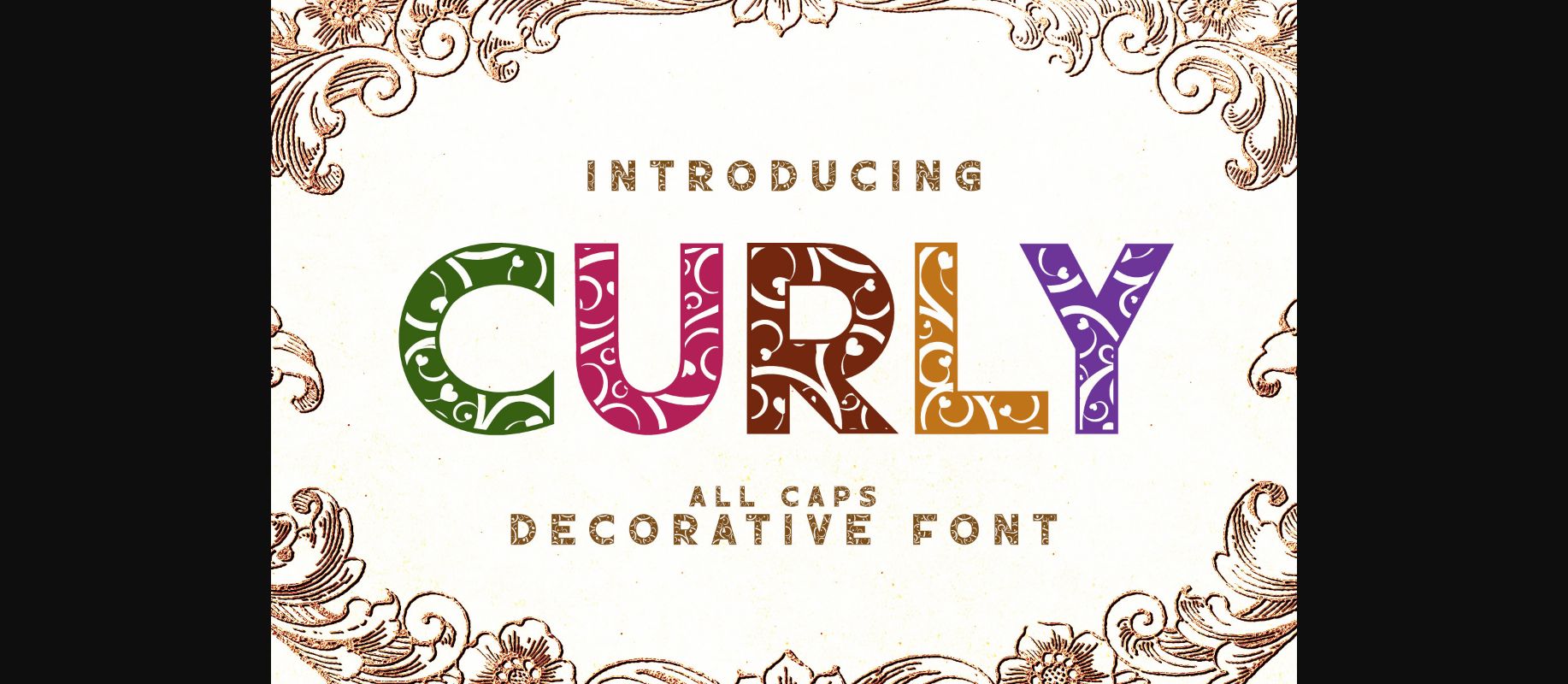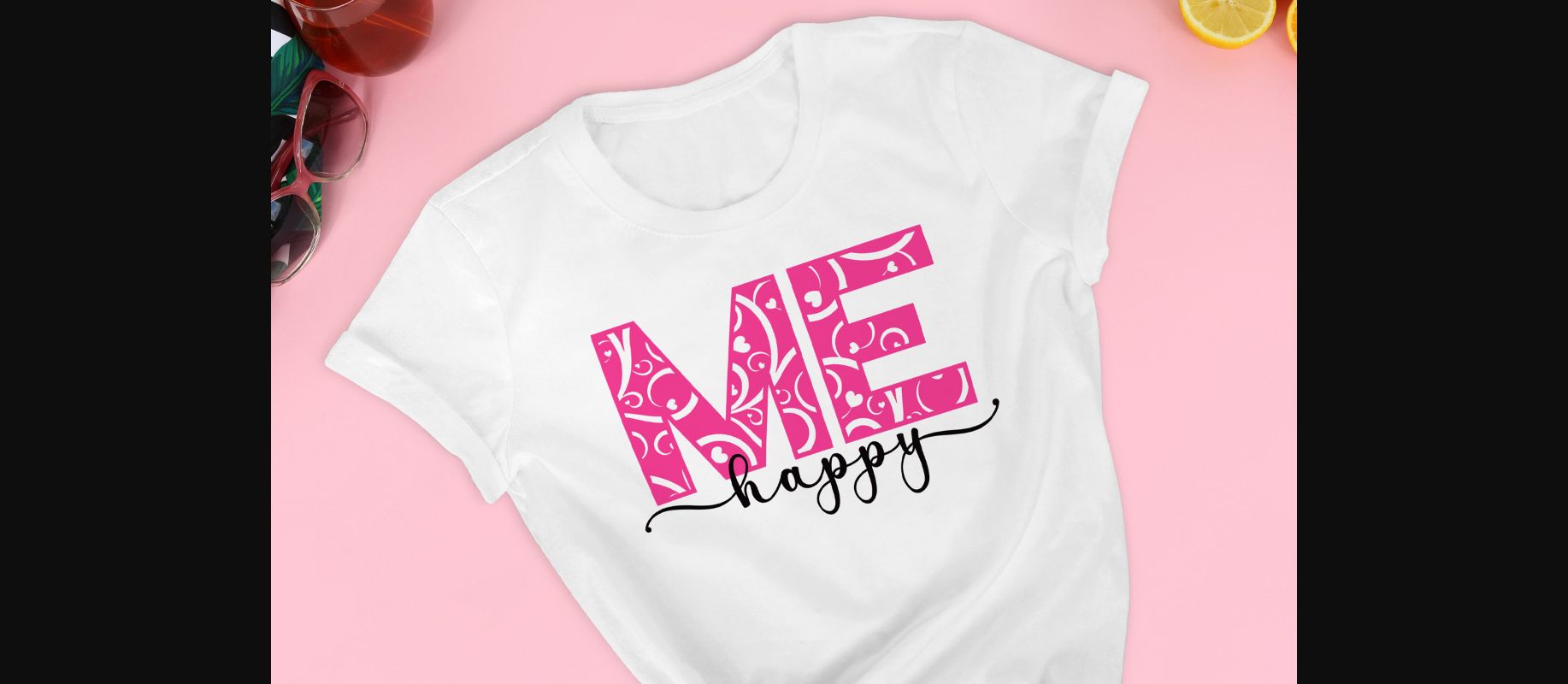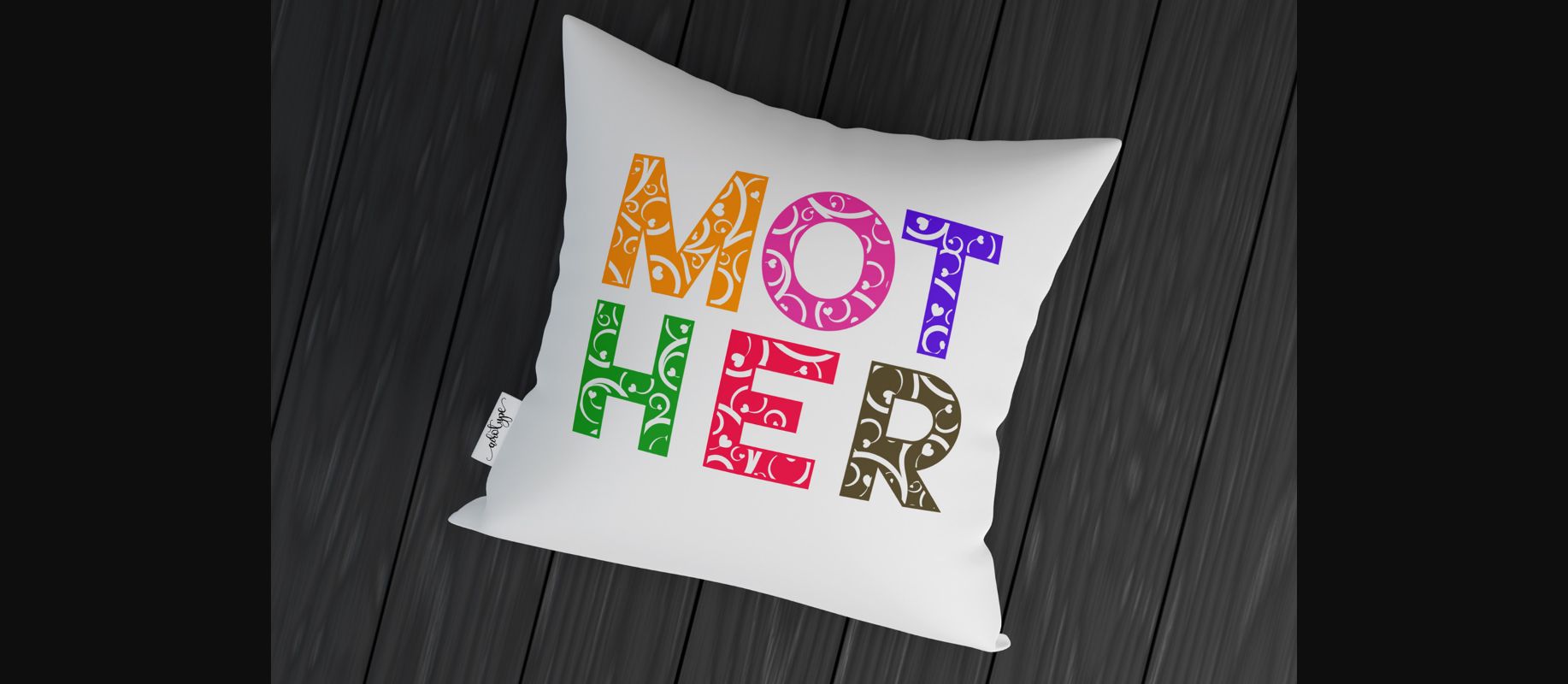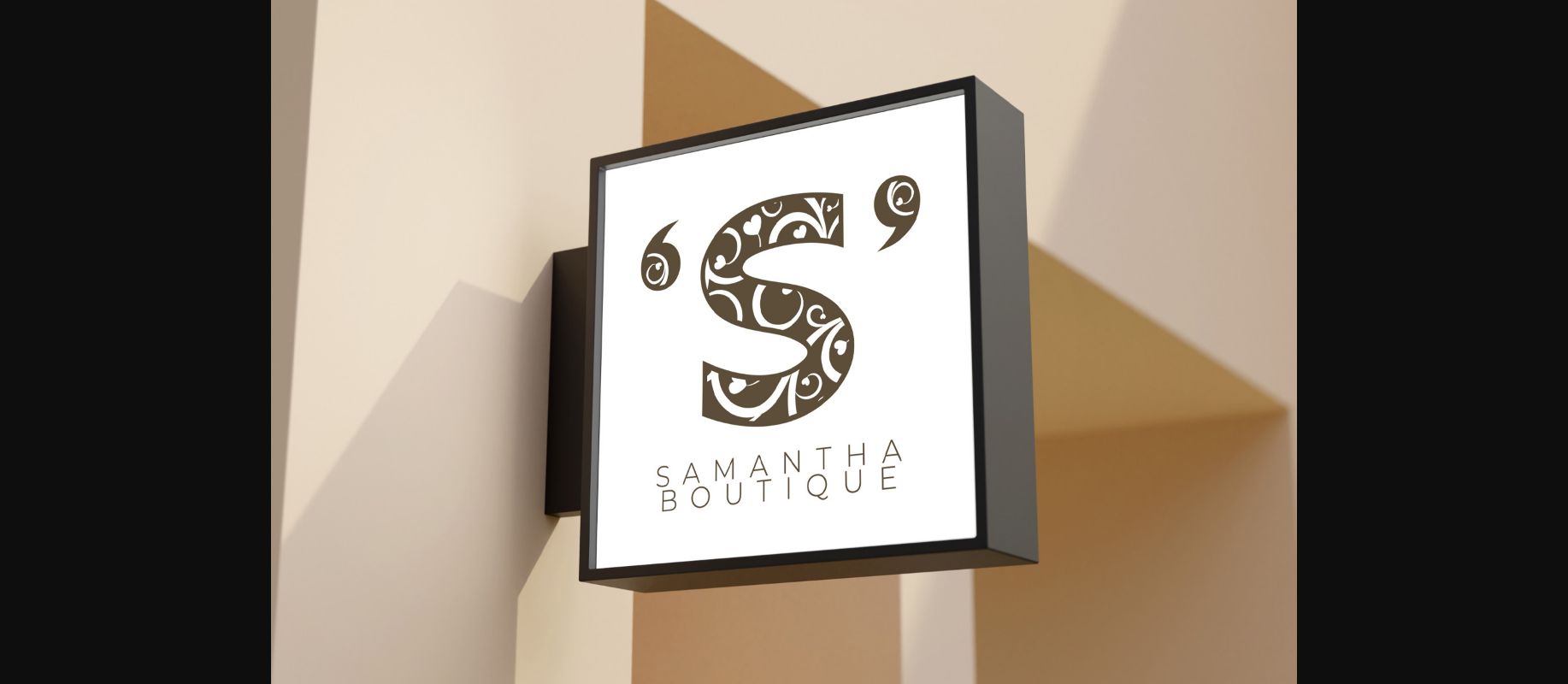
About Curly Font
Curly is a cool and fun decorative font. Whether you’re using it for crafting, digital designing, presentations or greeting cards making, it’s perfect!